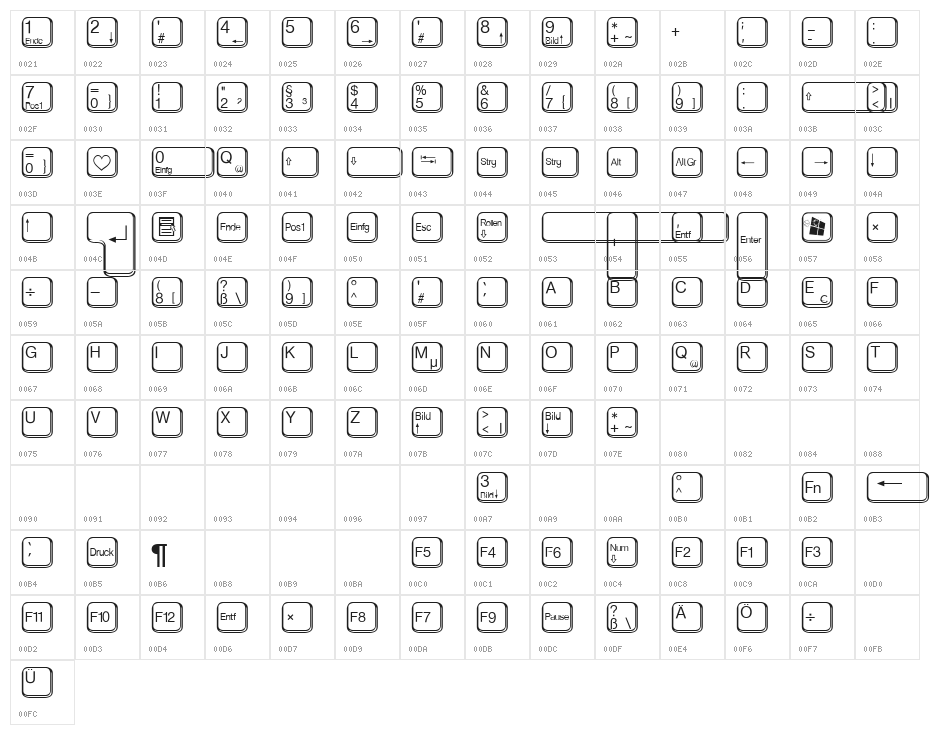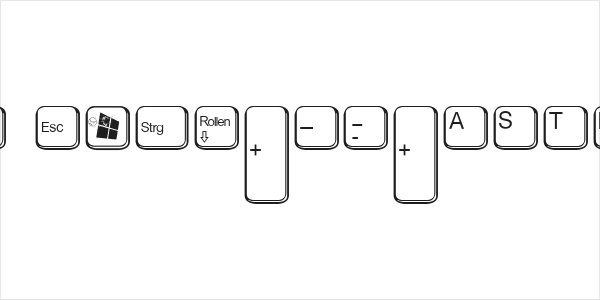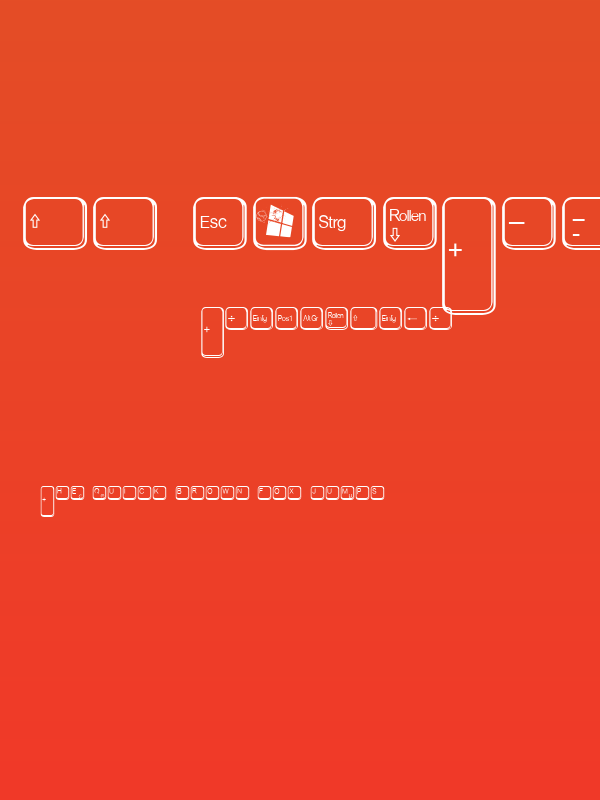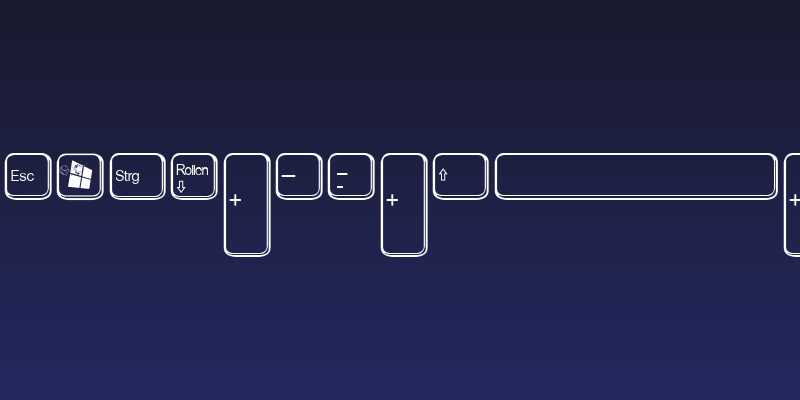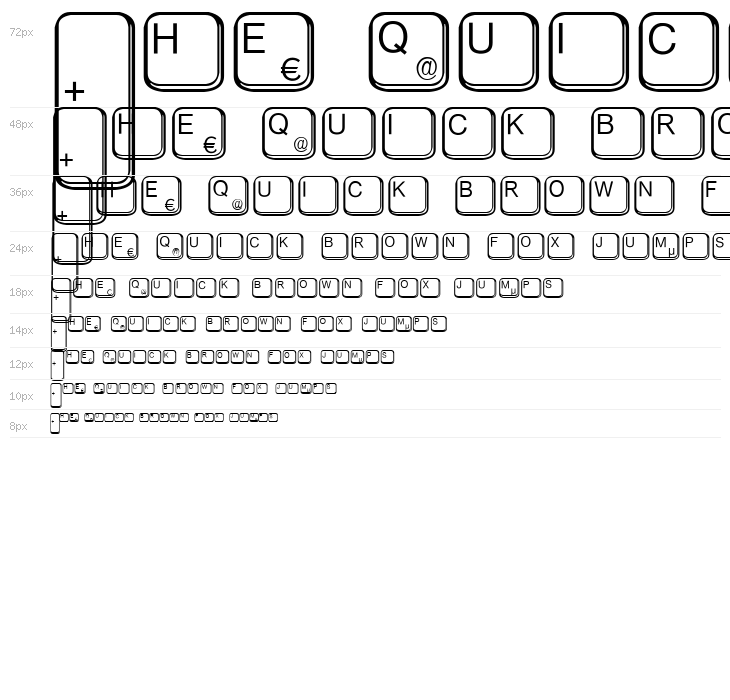
aa QWERTZ-Tasten Font
aa QWERTZ-Tasten Description
This image displays a set of keyboard keys arranged in a QWERTZ layout, commonly used in German-speaking countries. The keys are depicted with a three-dimensional effect, featuring a bold outline and a shadow that gives them a raised appearance. Each key is labeled with a character or function, such as letters, numbers, and special characters. The font used for the characters on the keys is clear and legible, with a sans-serif style that ensures readability. The overall design is functional, focusing on clarity and ease of use, which is typical for keyboard layouts.